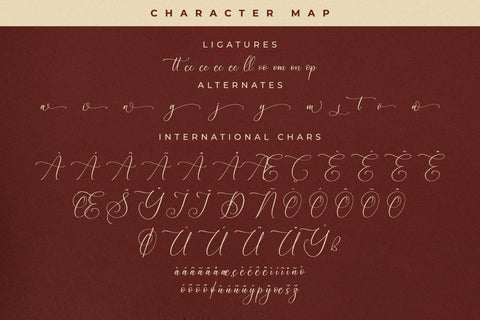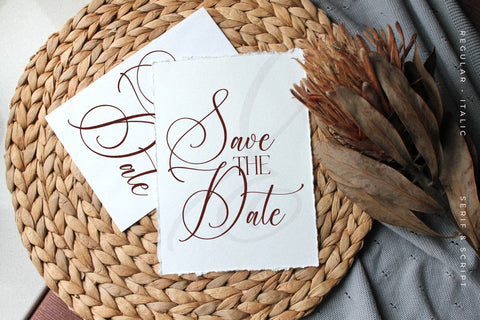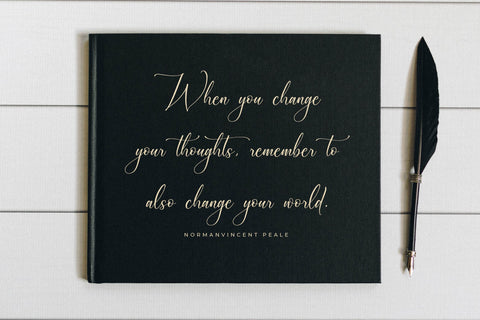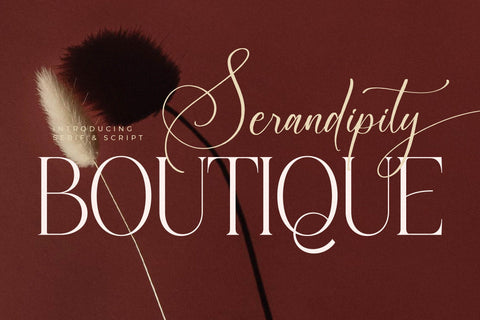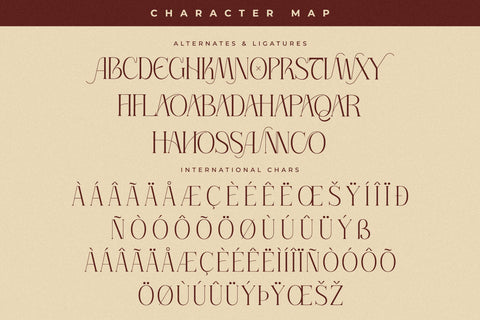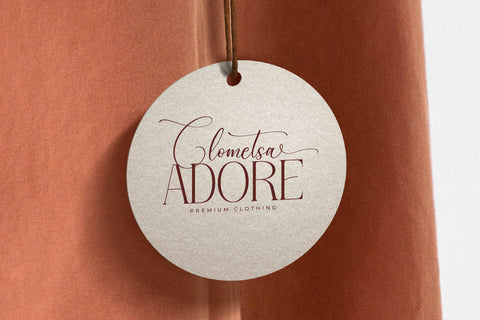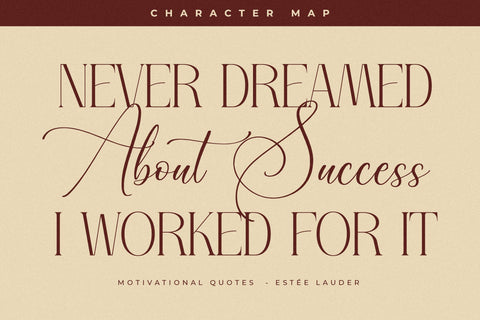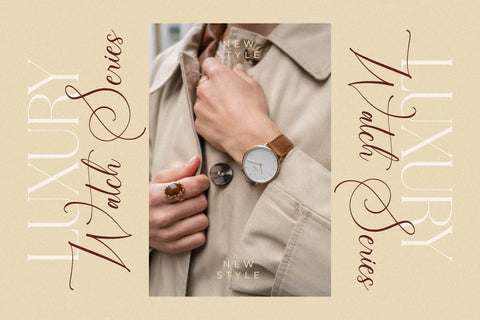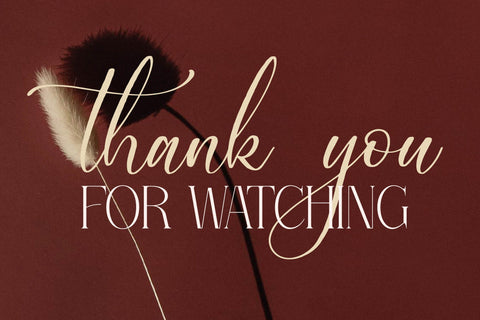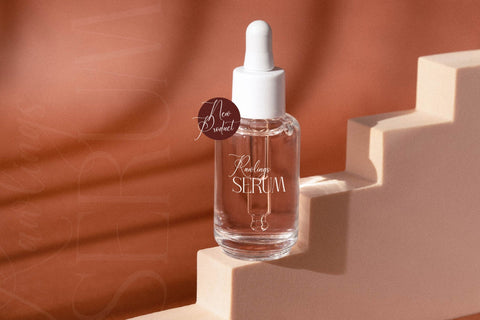
Serandipity Boutique Font Duo
Proudly present Serandipity Boutique Font Duo , created by Storytype,
A serif and script typeface that has own unique style & modern look.